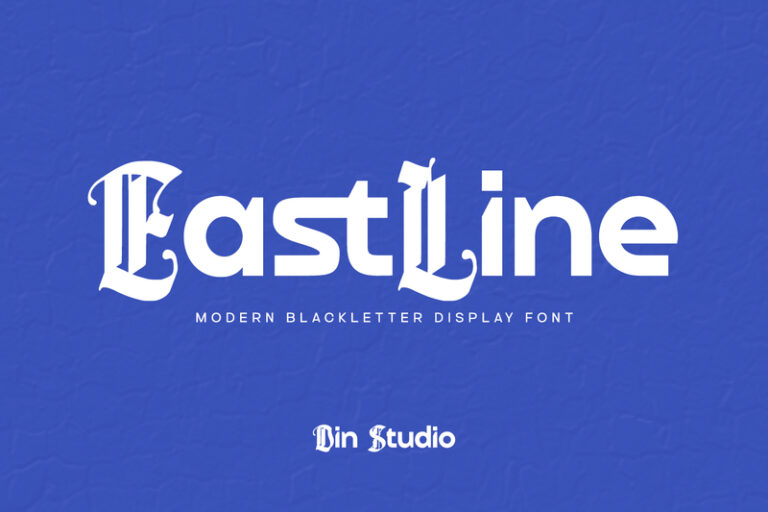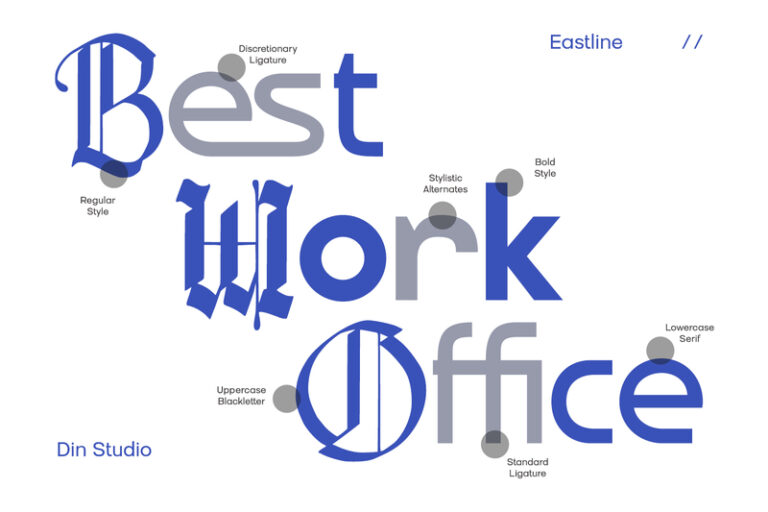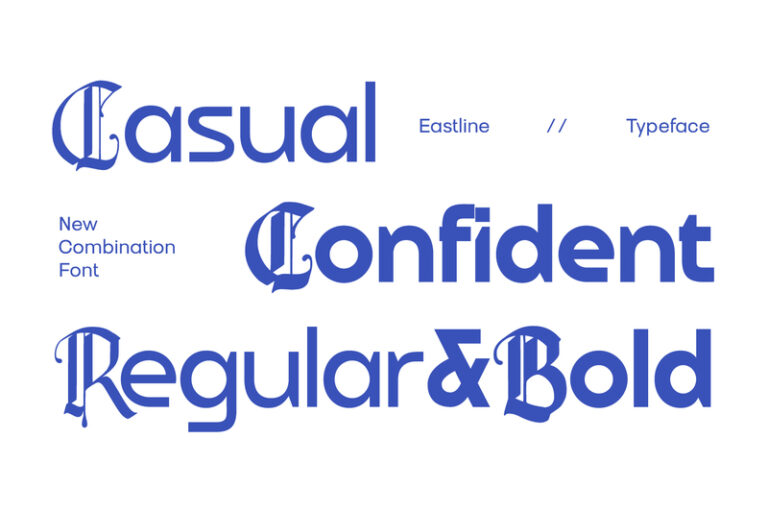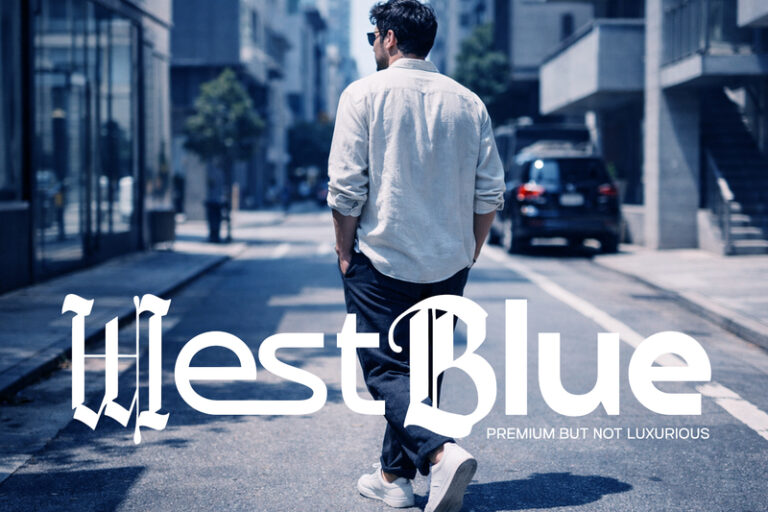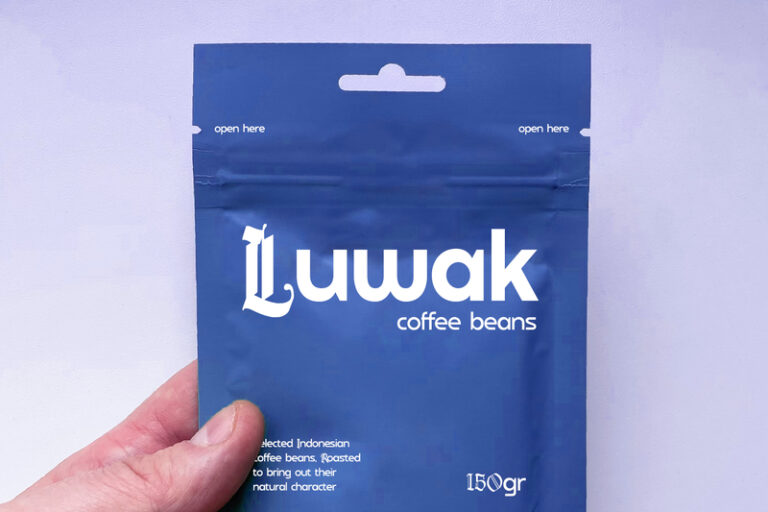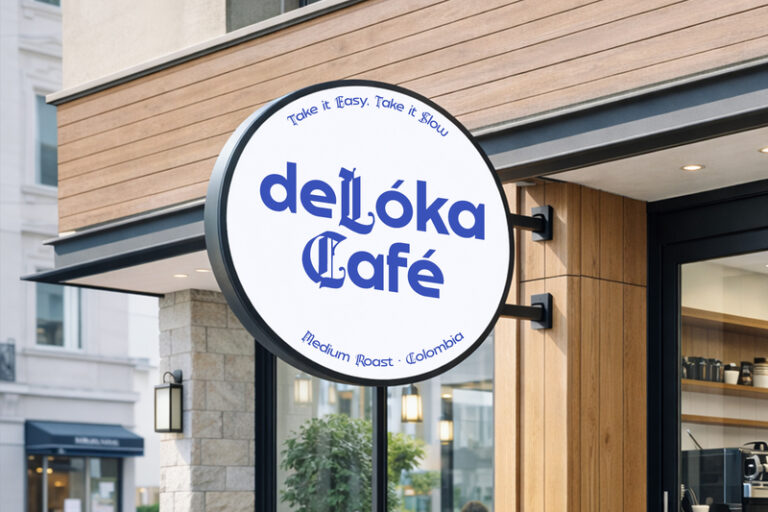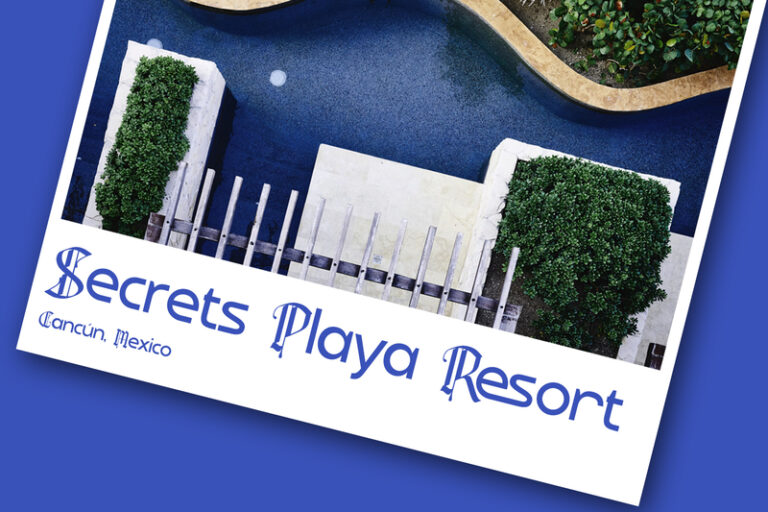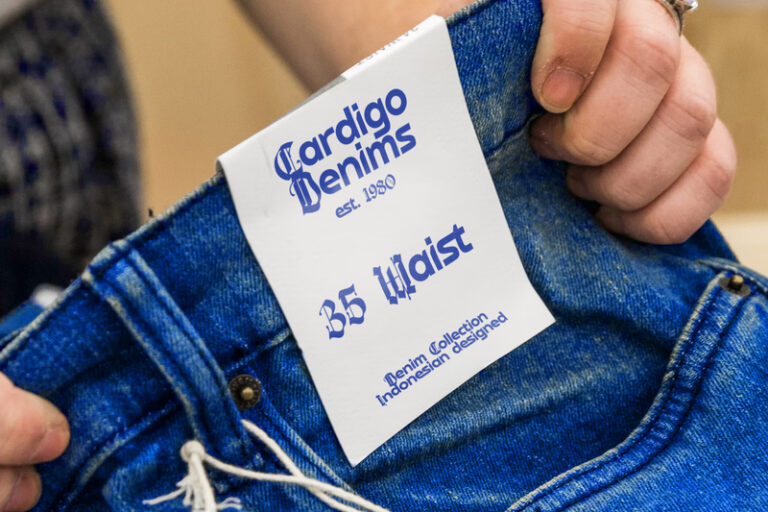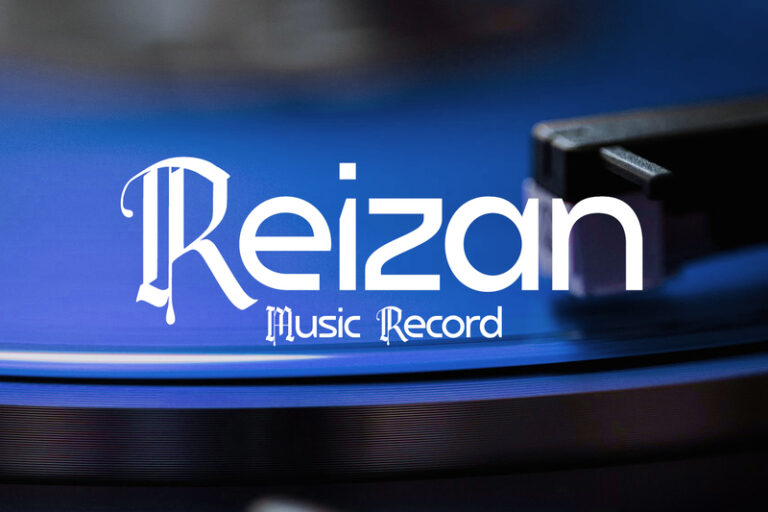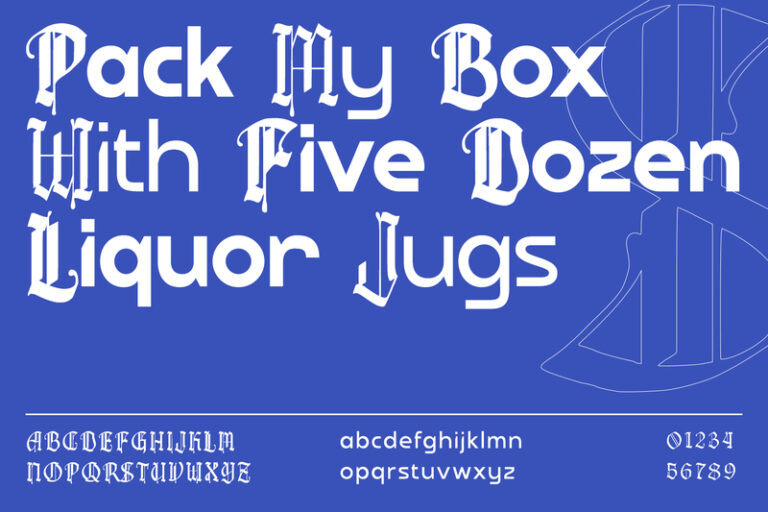
Eastline – Blackletter Display Font
Eastline Regular
Eastline is a bold blackletter display font designed to deliver a powerful Gothic presence with a clean and balanced typographic structure. Eastline combines the dramatic character of traditional blackletter typography with a more organized and contemporary display style.
Its bold weight gives every word a commanding presence. The consistent proportions across its characters create a harmonious visual rhythm, while the generous spacing allows each intricate letterform to remain clearly visible without making the overall composition feel crowded. In addition, enjoy the features here.
- Alternates
- Standard and Discretionary Ligatures
Eastline fits in logos, quotes, branding, posters, and many more designs. Find out more ways to use this font by taking a look at the font preview.